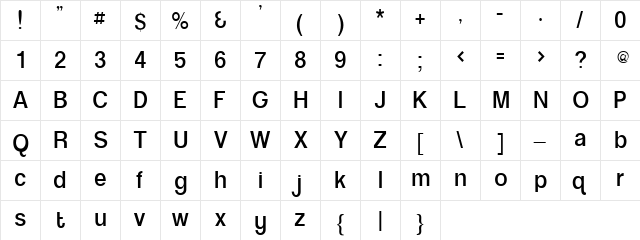
AL SongWriter Regular
Design Context for AL SongWriter Typeface
AL SongWriter takes a measured approach to typography — its balanced proportions and neutral character make it a reliable workhorse for both digital and print work.